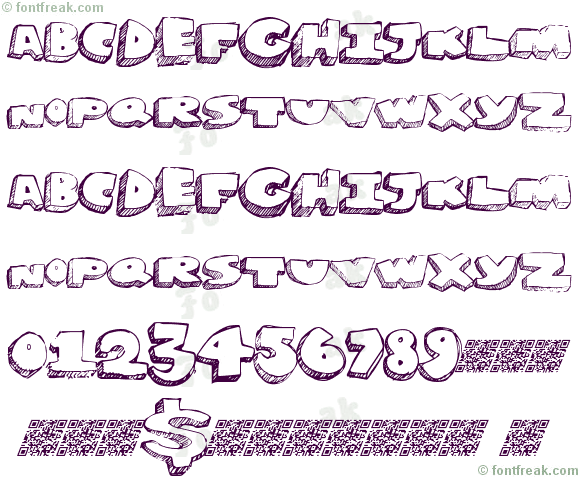
GrapeSoda
About GrapeSoda
GrapeSoda by Xerographer Fonts is a playful display font that captures a sense of whimsy and fun, making it a perfect choice for a variety of creative projects. As a decorative typeface, GrapeSoda features a bold and rounded design with a hand-drawn appearance, giving it a unique, casual vibe. The strokes are uneven, which adds to its charm, while the overall structure showcases a moderate contrast that enhances its visibility. The spacing between letters is generous, ensuring that words stand out effectively, making it suitable for eye-catching headlines and titles.
This font is particularly well-suited for use in vibrant and youthful contexts. It shines in applications such as children’s book covers, where its playful nature can engage young readers. GrapeSoda is also ideal for party invitations, adding a festive touch that sets the tone for celebrations. Restaurant menus featuring playful or eclectic dining experiences can benefit from this font, as it draws attention and invites curiosity. Additionally, it works wonderfully for social media graphics, helping content creators capture the essence of fun and creativity in their posts.
What truly sets GrapeSoda apart is its ability to convey a sense of joy and lightheartedness, making it a standout choice for projects that seek to engage and delight audiences. For those in search of a unique typeface that captures attention and brings a smile, the GrapeSoda font free download is an excellent addition to any designer’s toolkit.